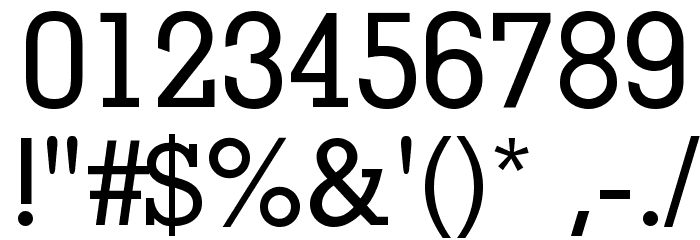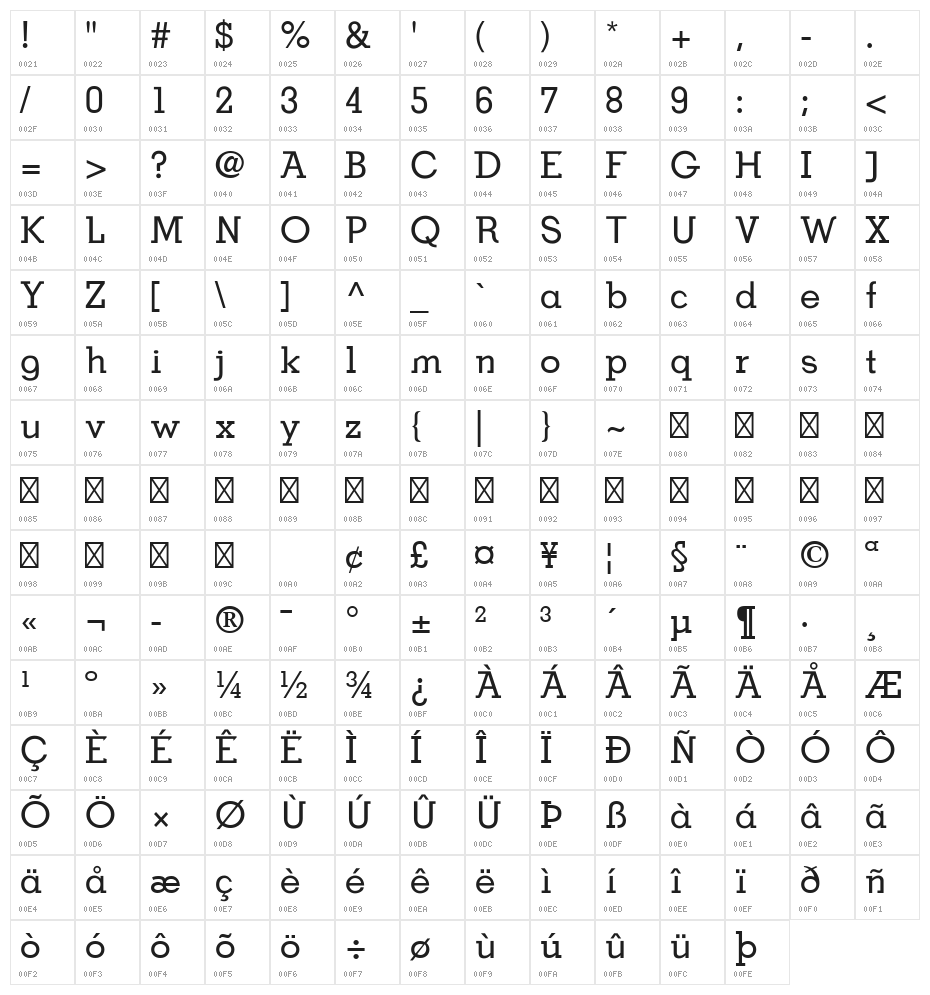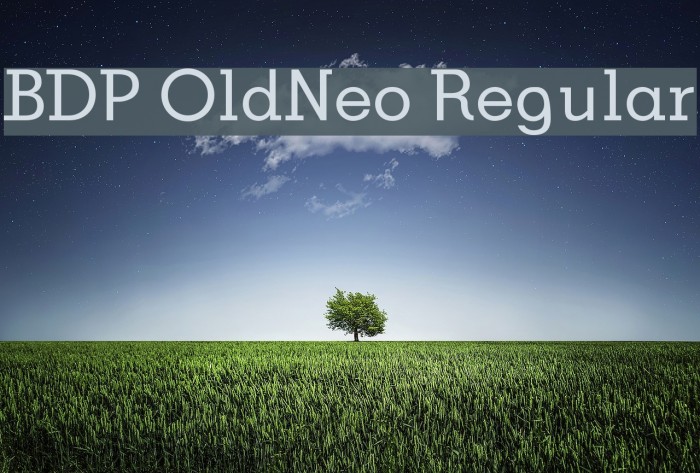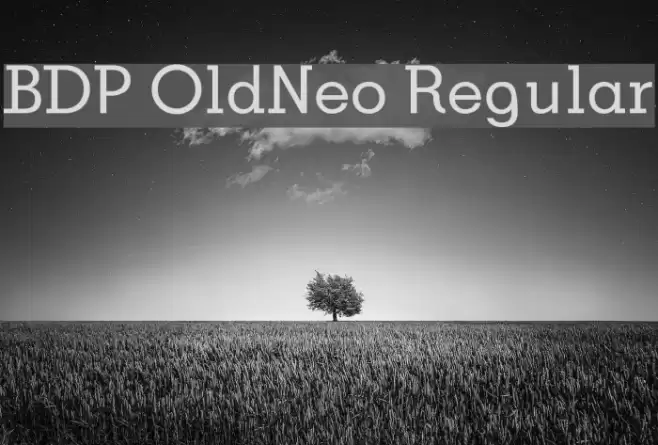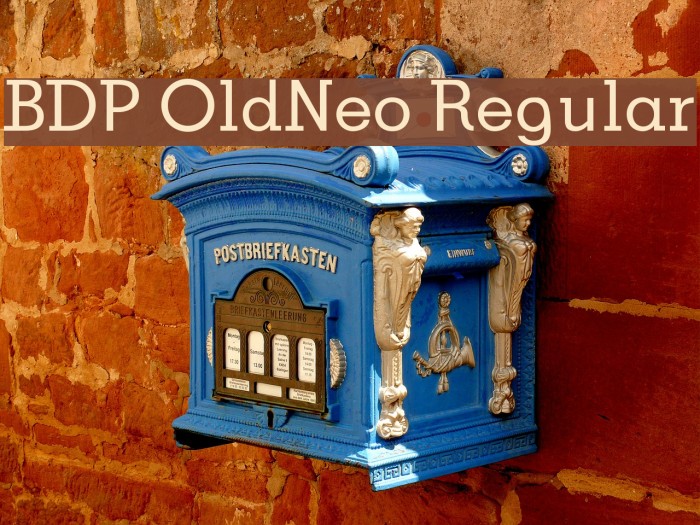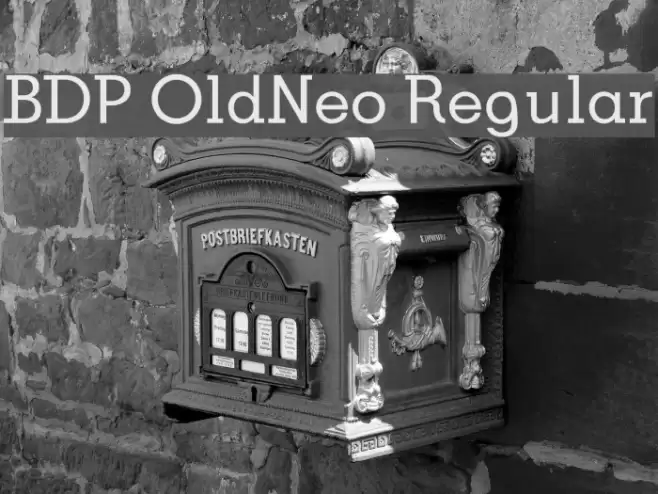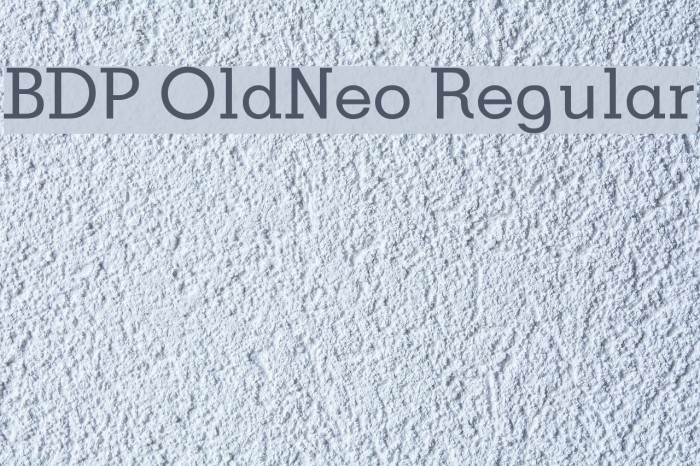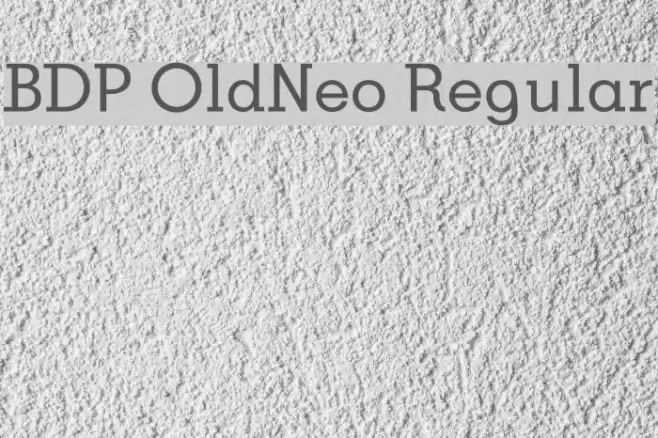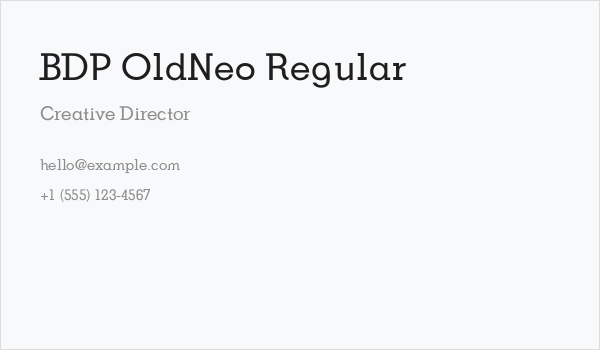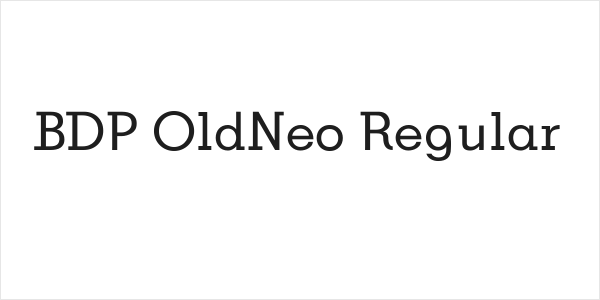
BDP OldNeo Regular Font
BDP OldNeo Regular Description
This font presents a classic serif style with a modern twist, showcasing a balance between traditional elegance and contemporary design. The uppercase letters are bold and prominent, while the lowercase letters maintain a consistent flow with subtle curves. The numerals are clear and well-proportioned, ensuring readability. Special characters are distinct and harmonize with the overall aesthetic. The font's design is versatile, making it suitable for various applications while maintaining a timeless appeal.
| Proposed Projects | Ideal for editorial design, book covers, branding, and formal invitations. |